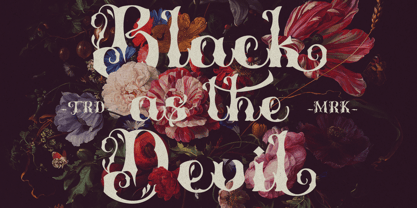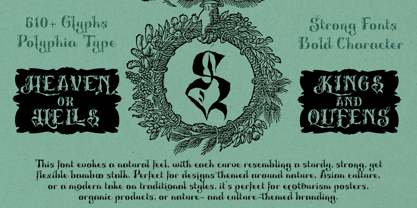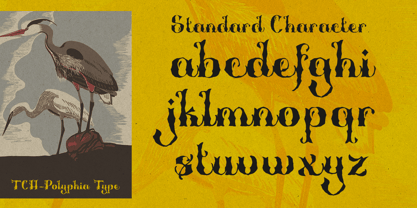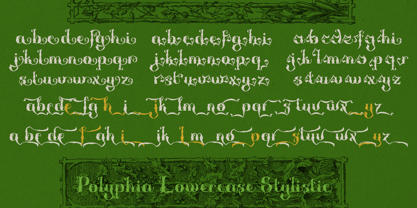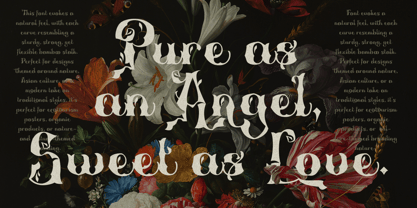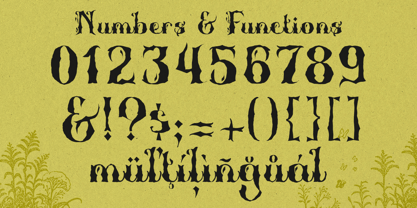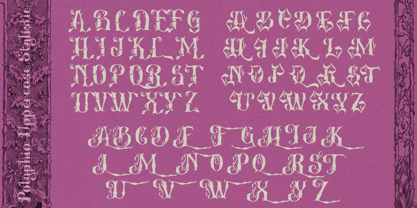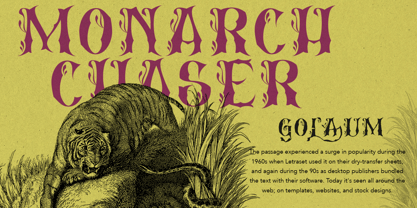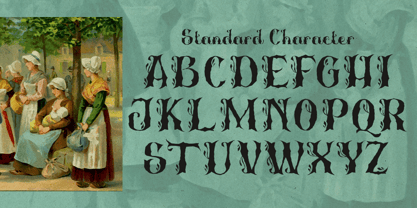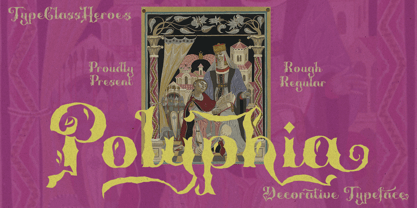
Polyphia
by TypeClassHeroes
The Polyphia Font Family was designed by Suandana ipandemade and published by TypeClassHeroes. Polyphia contains 2 styles and family package options. More about this family
Introducing. Polyphia. a Decorative font that comes with two styles regular and rough version. This font evokes a natural feel, with each curve resembling a sturdy, strong, yet flexible bamboo stalk. Perfect for designs themed around nature, Asian culture, or a modern take on traditional styles, it's perfect for advertising purposes and makes it ideal for whether you’re creating digital content or printed materials.
Designers: Suandana ipandemade
Foundry: TypeClassHeroes